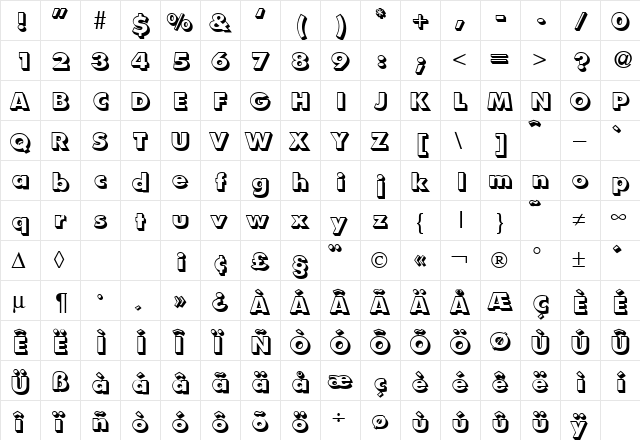
FunctionTwoShadedExtrabold Regular
Design Context for FunctionTwoShadedExtrabold Typeface
FunctionTwoShadedExtrabold has an approachable, lighthearted character — its loose, expressive forms are well-suited to children's content, casual branding, and fun-first design.
Font Pairing: Pairs well with a rounded or humanist sans for body copy, maintaining the friendly tone without relying on FunctionTwoShadedExtrabold to carry extended reading.
Pro Tip: Use FunctionTwoShadedExtrabold at larger display sizes where its expressive character can land. Pair with a clean, simple sans for body copy to maintain readability.